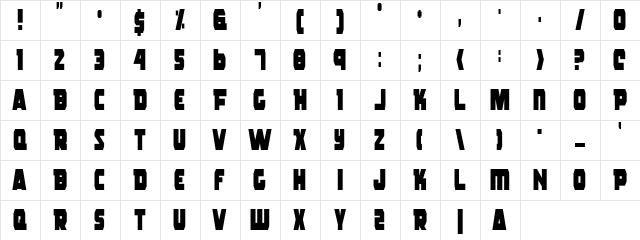
Rogue Hero Condensed Condensed
Design Context for Rogue Hero Condensed Typeface
Rogue Hero Condensed is a composed and adaptable typeface that performs quietly and consistently across a wide range of design contexts. The condensed width makes it efficient for tight spaces without sacrificing legibility.